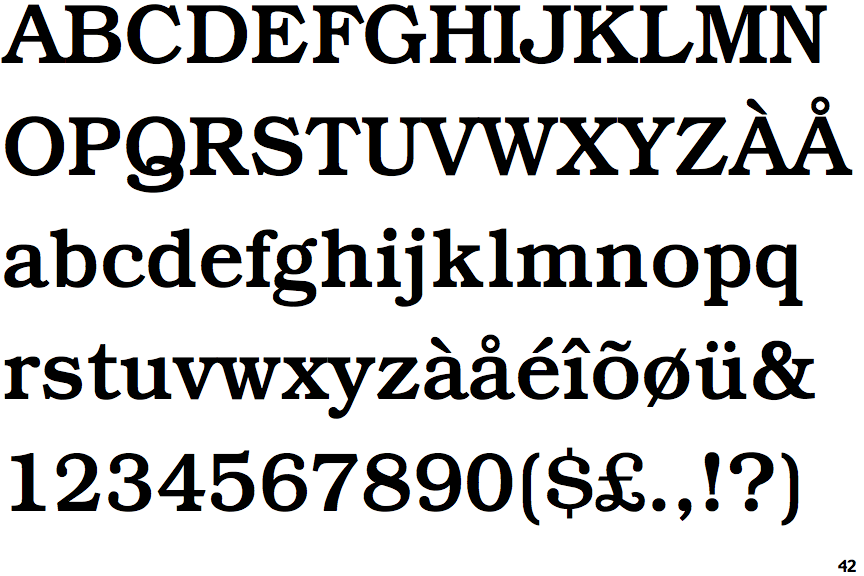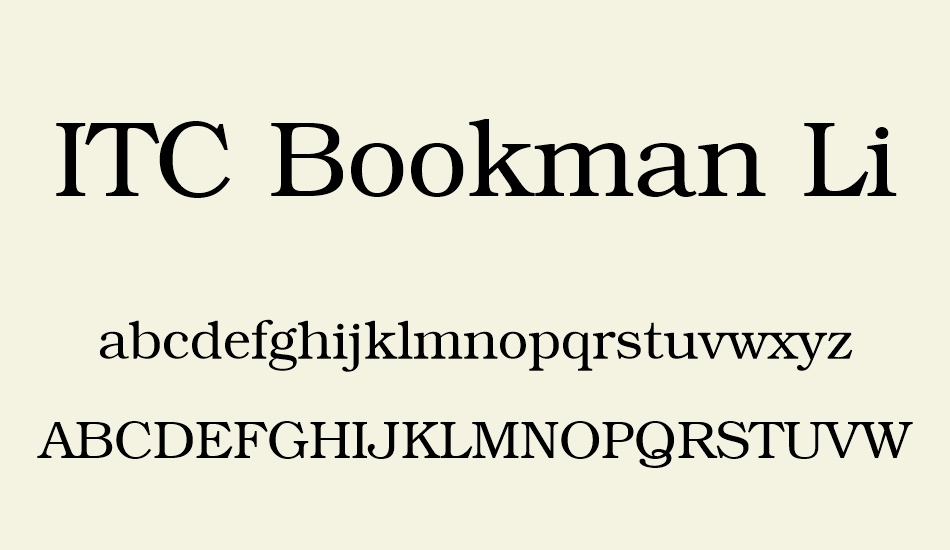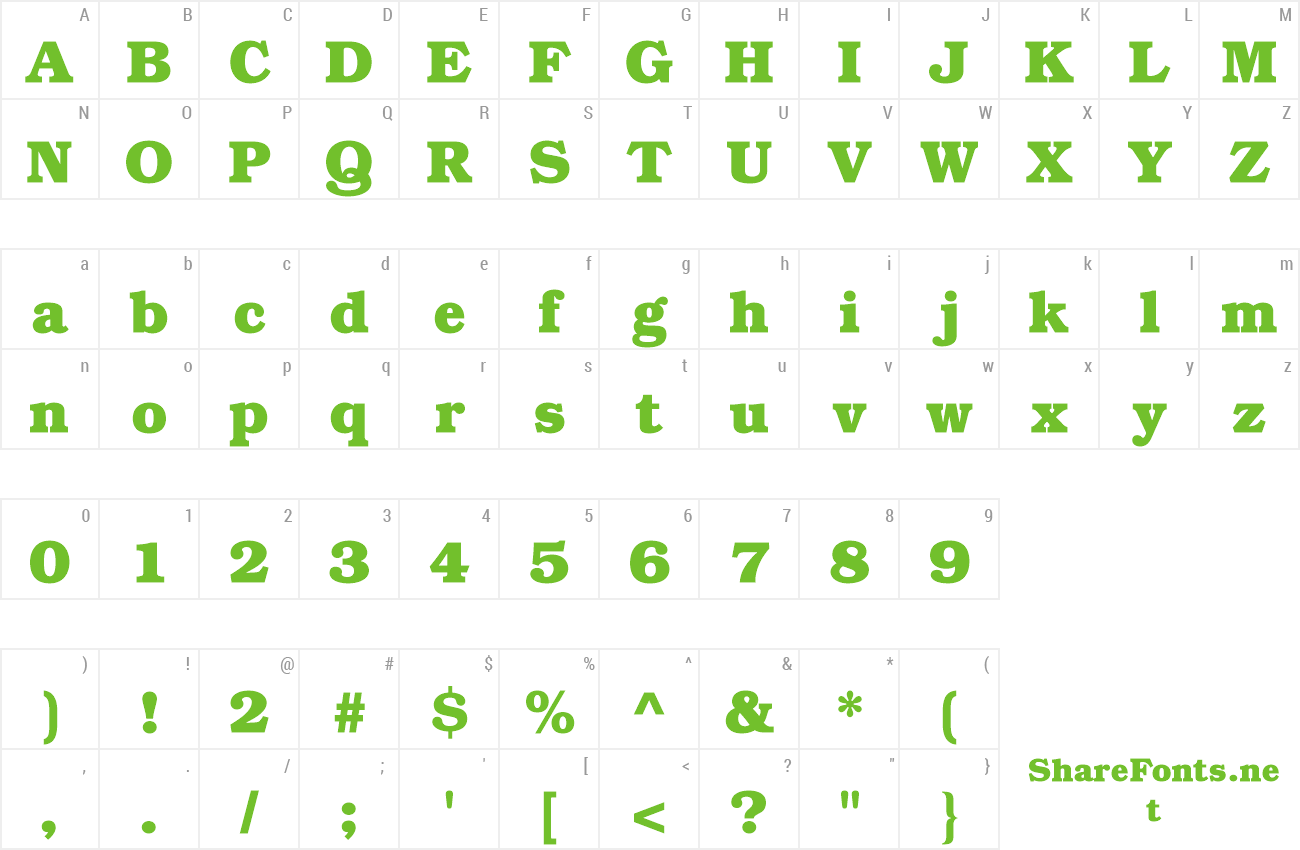
Bookman Itc Font
Bookman Itc Font - Itc bookman contains 8 styles and family package options. This fontlist includes typefaces such as itc bookman and itc bookman. All fonts are available to try, buy and download. Itc bookman font was designed by edward benguiat, whose goal was to design a typeface that had a clear resemblance.
This fontlist includes typefaces such as itc bookman and itc bookman. Itc bookman font was designed by edward benguiat, whose goal was to design a typeface that had a clear resemblance. Itc bookman contains 8 styles and family package options. All fonts are available to try, buy and download.
Itc bookman font was designed by edward benguiat, whose goal was to design a typeface that had a clear resemblance. All fonts are available to try, buy and download. Itc bookman contains 8 styles and family package options. This fontlist includes typefaces such as itc bookman and itc bookman.
This fontlist includes typefaces such as itc bookman and itc bookman. Itc bookman contains 8 styles and family package options. All fonts are available to try, buy and download. Itc bookman font was designed by edward benguiat, whose goal was to design a typeface that had a clear resemblance.
ITC Bookman Light free font in 2021 Bookman, Fonts, Light font
Itc bookman font was designed by edward benguiat, whose goal was to design a typeface that had a clear resemblance. All fonts are available to try, buy and download. This fontlist includes typefaces such as itc bookman and itc bookman. Itc bookman contains 8 styles and family package options.
All fonts are available to try, buy and download. This fontlist includes typefaces such as itc bookman and itc bookman. Itc bookman contains 8 styles and family package options. Itc bookman font was designed by edward benguiat, whose goal was to design a typeface that had a clear resemblance.
This fontlist includes typefaces such as itc bookman and itc bookman. All fonts are available to try, buy and download. Itc bookman contains 8 styles and family package options. Itc bookman font was designed by edward benguiat, whose goal was to design a typeface that had a clear resemblance.
This fontlist includes typefaces such as itc bookman and itc bookman. Itc bookman contains 8 styles and family package options. All fonts are available to try, buy and download. Itc bookman font was designed by edward benguiat, whose goal was to design a typeface that had a clear resemblance.
All fonts are available to try, buy and download. Itc bookman contains 8 styles and family package options. Itc bookman font was designed by edward benguiat, whose goal was to design a typeface that had a clear resemblance. This fontlist includes typefaces such as itc bookman and itc bookman.
ITC Bookman Bold Fonts
Itc bookman font was designed by edward benguiat, whose goal was to design a typeface that had a clear resemblance. All fonts are available to try, buy and download. This fontlist includes typefaces such as itc bookman and itc bookman. Itc bookman contains 8 styles and family package options.
This fontlist includes typefaces such as itc bookman and itc bookman. Itc bookman font was designed by edward benguiat, whose goal was to design a typeface that had a clear resemblance. Itc bookman contains 8 styles and family package options. All fonts are available to try, buy and download.
ITC Bookman DAYLIGHT FONTS
This fontlist includes typefaces such as itc bookman and itc bookman. Itc bookman contains 8 styles and family package options. Itc bookman font was designed by edward benguiat, whose goal was to design a typeface that had a clear resemblance. All fonts are available to try, buy and download.
Download Free Font ITC Bookman Std
All fonts are available to try, buy and download. Itc bookman font was designed by edward benguiat, whose goal was to design a typeface that had a clear resemblance. Itc bookman contains 8 styles and family package options. This fontlist includes typefaces such as itc bookman and itc bookman.
Itc Bookman Contains 8 Styles And Family Package Options.
This fontlist includes typefaces such as itc bookman and itc bookman. Itc bookman font was designed by edward benguiat, whose goal was to design a typeface that had a clear resemblance. All fonts are available to try, buy and download.